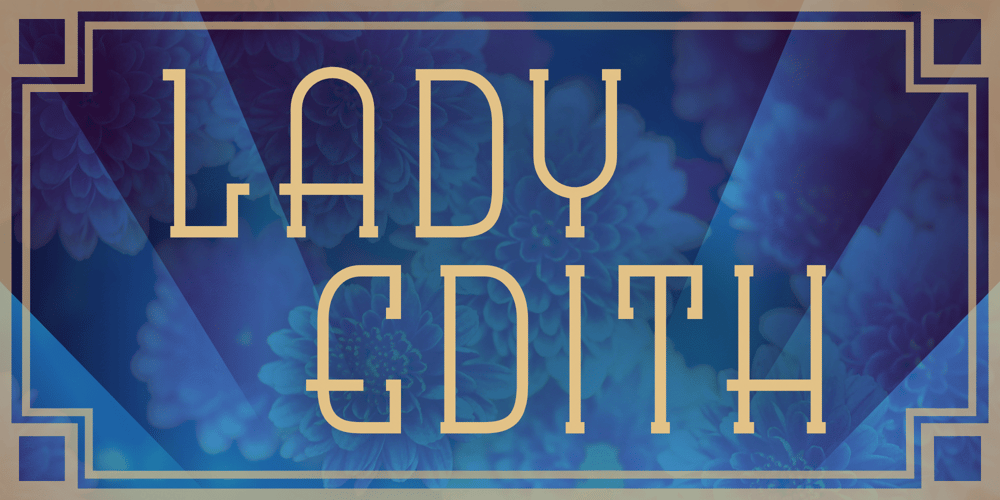
Lady Edith Font Family was designed by Michael Kovacevich and published by MKGD. Lady Edith contains 1 styles and family package options. Lady Edith harkens back to the days of flappers and cocktail parties. The early part of the twentieth century, when Art Deco was at it’s height and high fashion was all the rage. A time of beauty, class and elegance. A minimalistic font with clean lines and just enough flare to make it unique. The perfect font for any occasion that needs a bit of high end magic.There is no lower case for Lady Edith as it is a decorative font. The Upper case version serves both the upper and lower case keys.Lady Edith has a glyph count of 397 and supports the following languages;Supported Languages: Afrikaans, Albanian, Asu, Basque, Bemba, Bena, Bosnian, Catalan, Chiga, Colognian, Cornish, Croatian, Czech, Danish, Embu, English, Esperanto, Estonian, Faroese, Filipino, Finnish, French, Friulian, Galician, German, Gusii, Hungarian, Icelandic, Indonesian, Irish, Italian, Kabuverdianu, Kalaallisut, Kalenjin, Kamba, Kikuyu, Kinyarwanda, Latvian, Lithuanian, Low German, Lower Sorbian, Luo, Luxembourgish, Luyia, Machame, Makhuwa-Meetto, Makonde, Malagasy, Malay, Maltese, Manx, Meru, Morisyen, North Ndebele, Norwegian Bokmål, Norwegian Nynorsk, Nyankole, Oromo, Polish, Portuguese, Romanian, Romansh, Rombo, Rundi, Rwa, Samburu, Sango, Sangu, Scottish Gaelic, Sena, Shambala, Shona, Slovak, Slovenian, Soga, Somali, Spanish, Swahili, Swedish, Swiss German, Taita, Teso, Turkmen, Upper Sorbian, Vunjo, Walser, Zulu